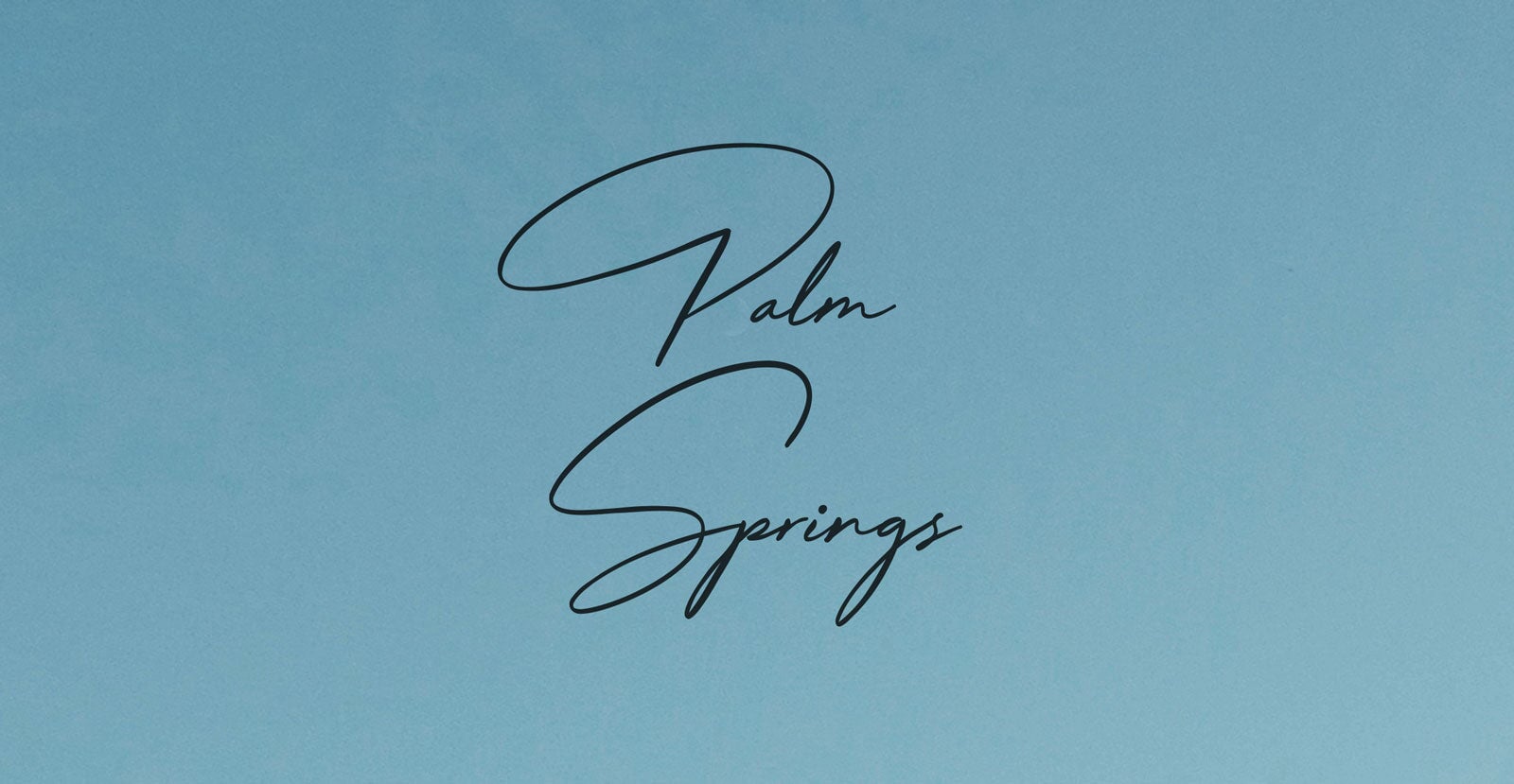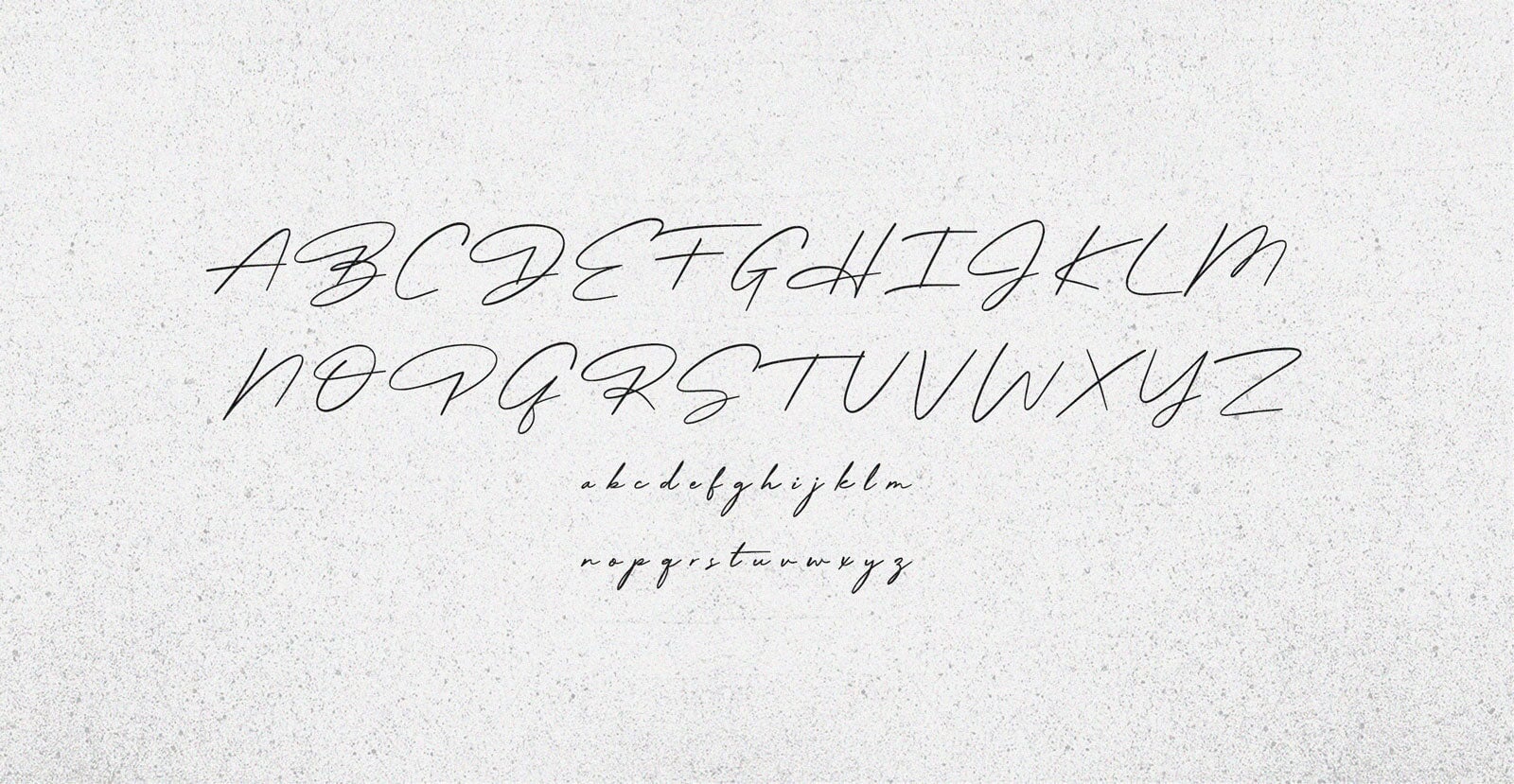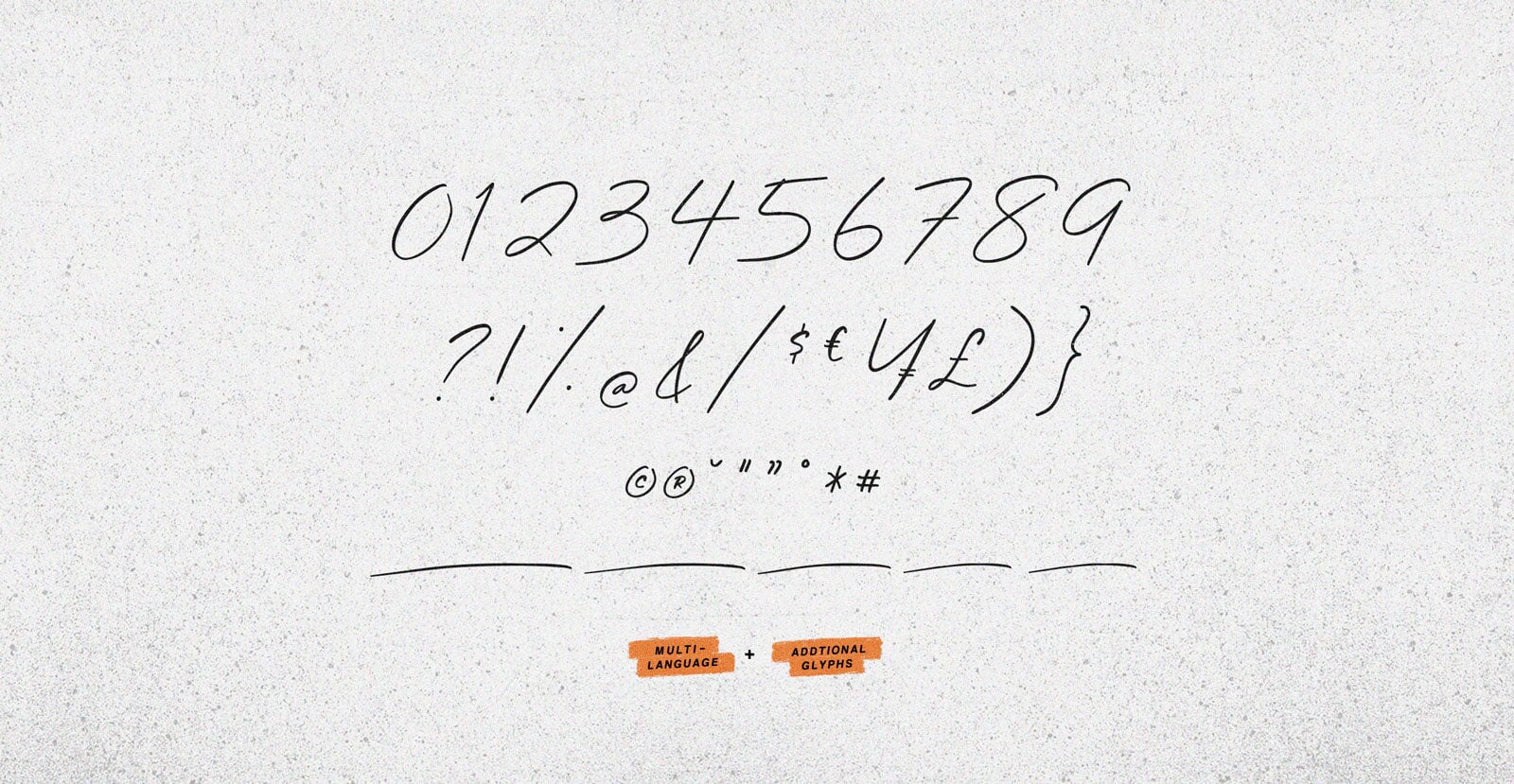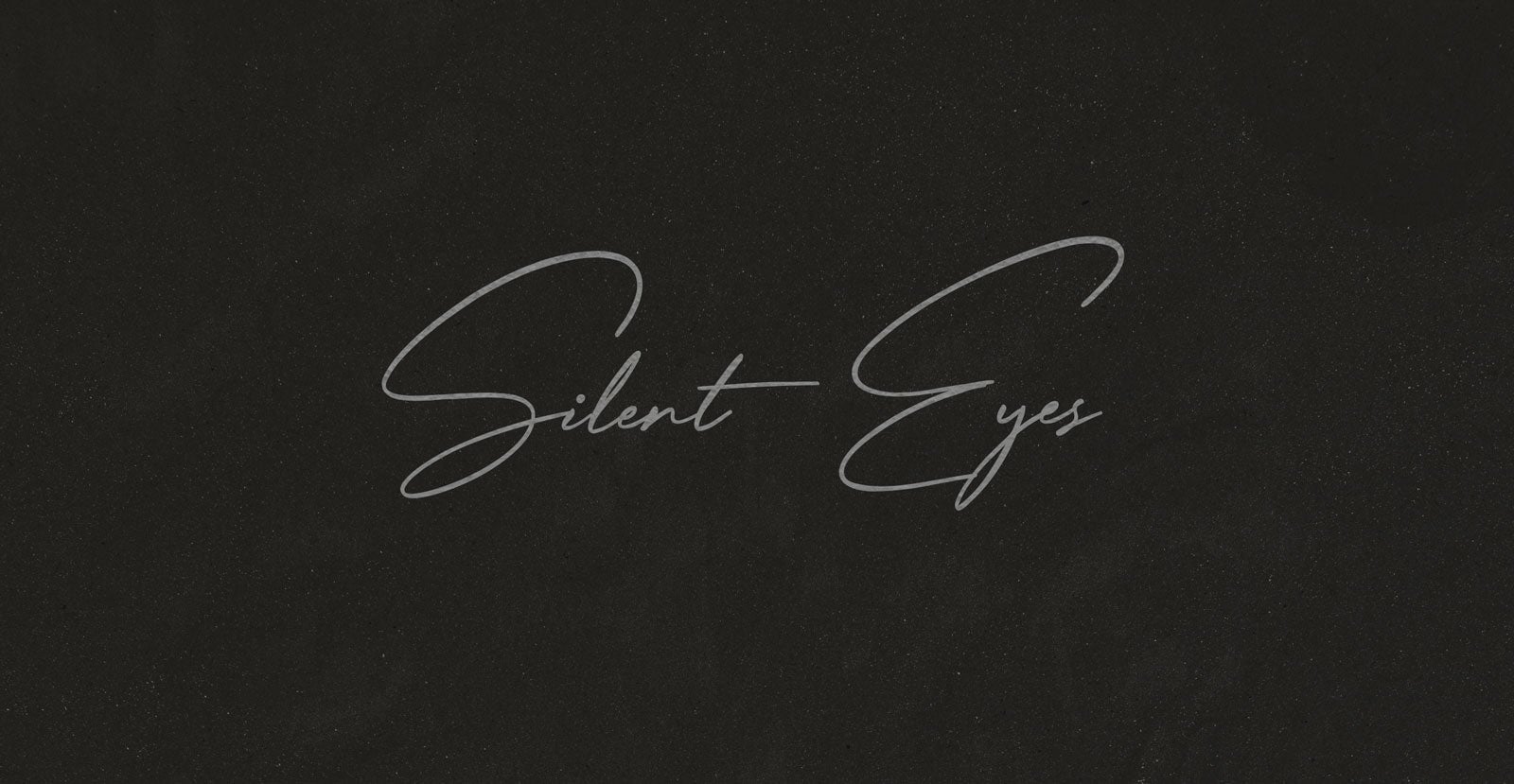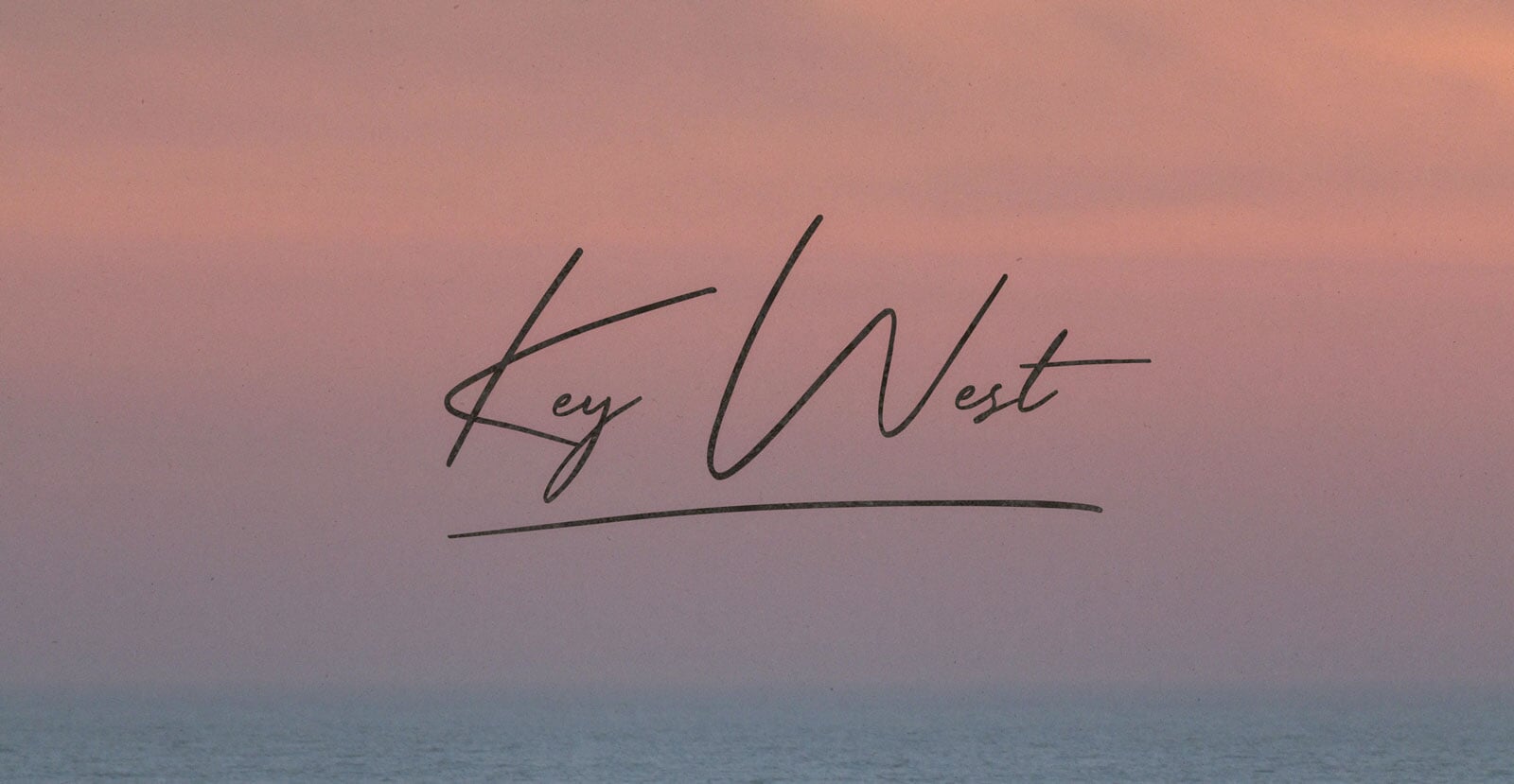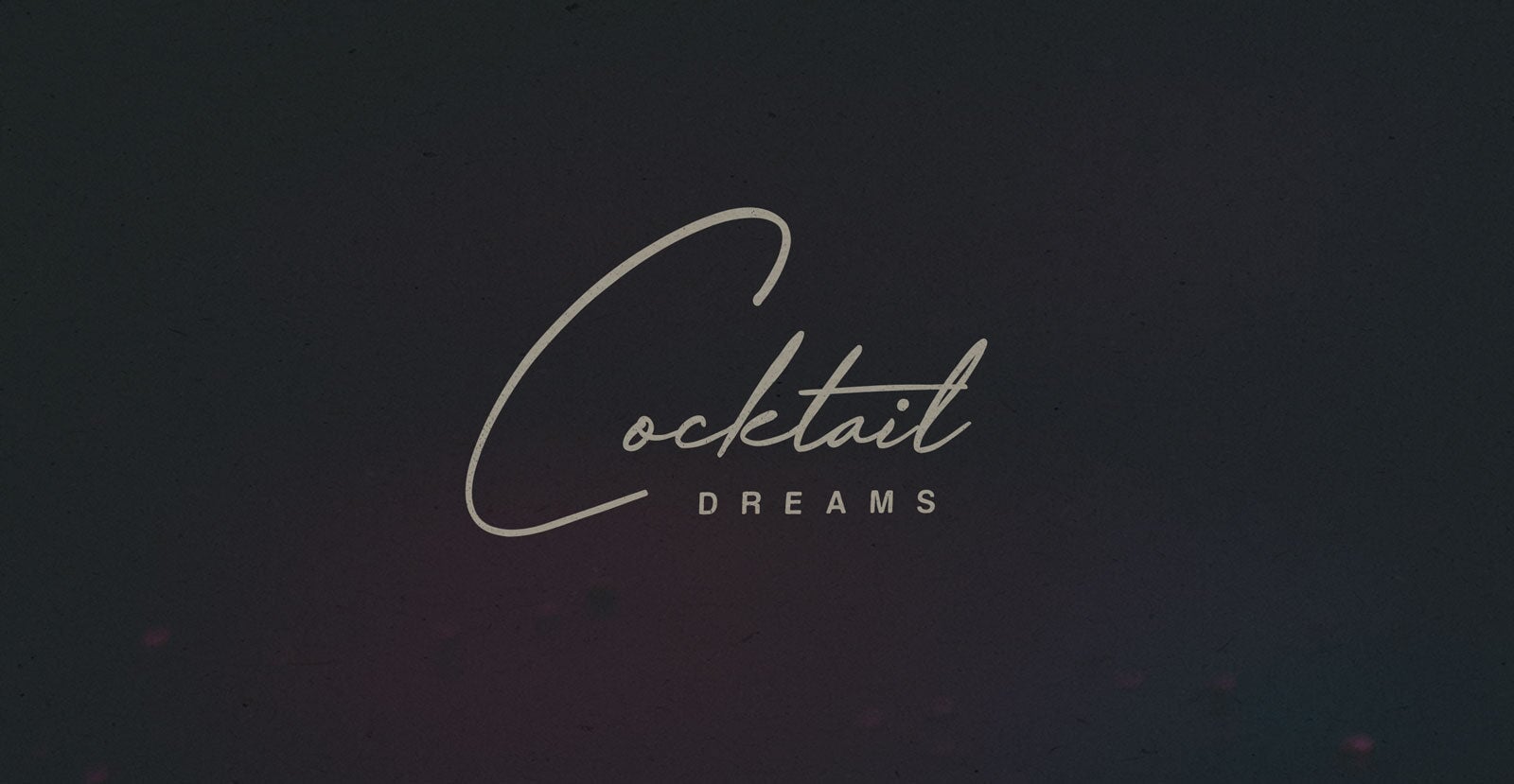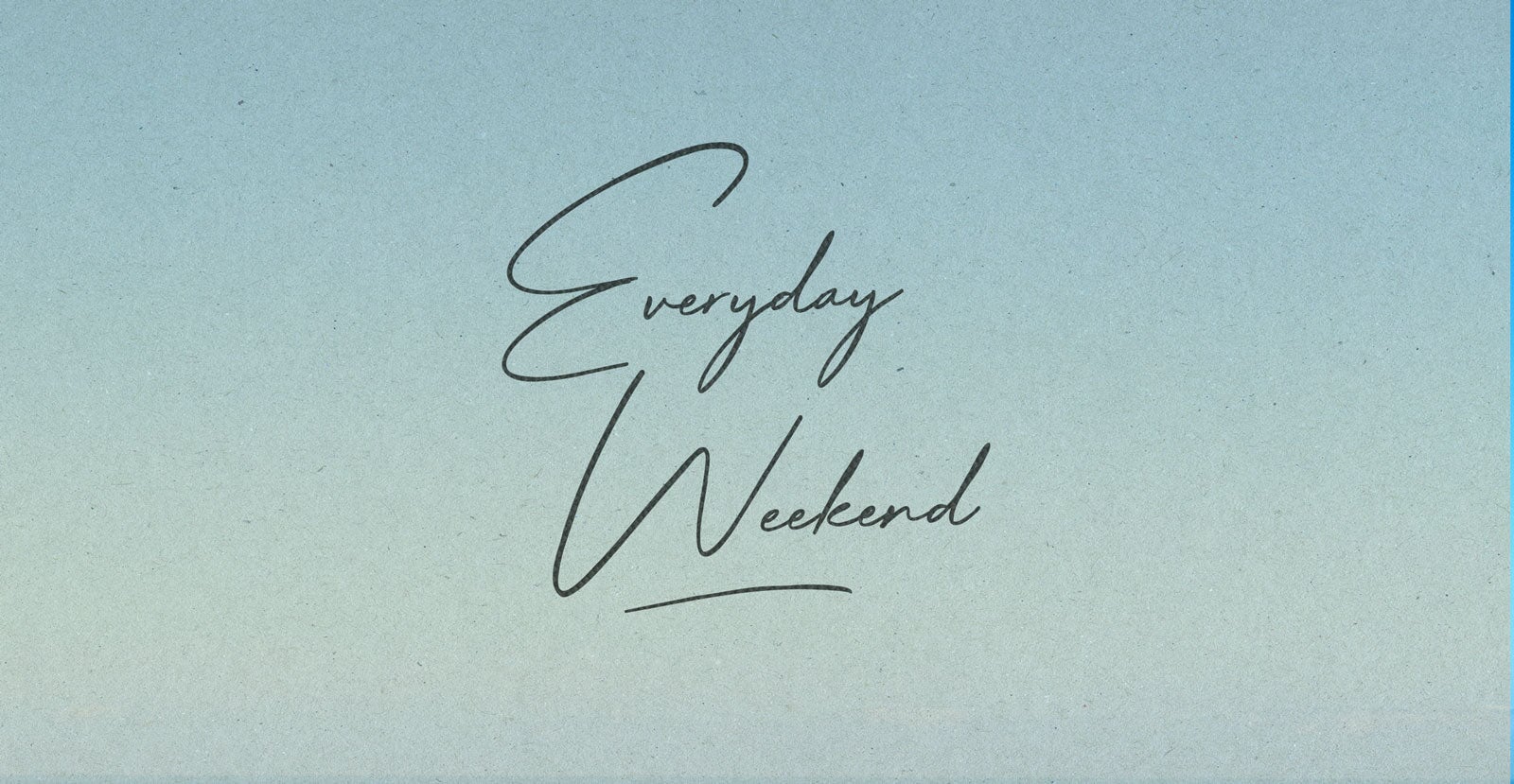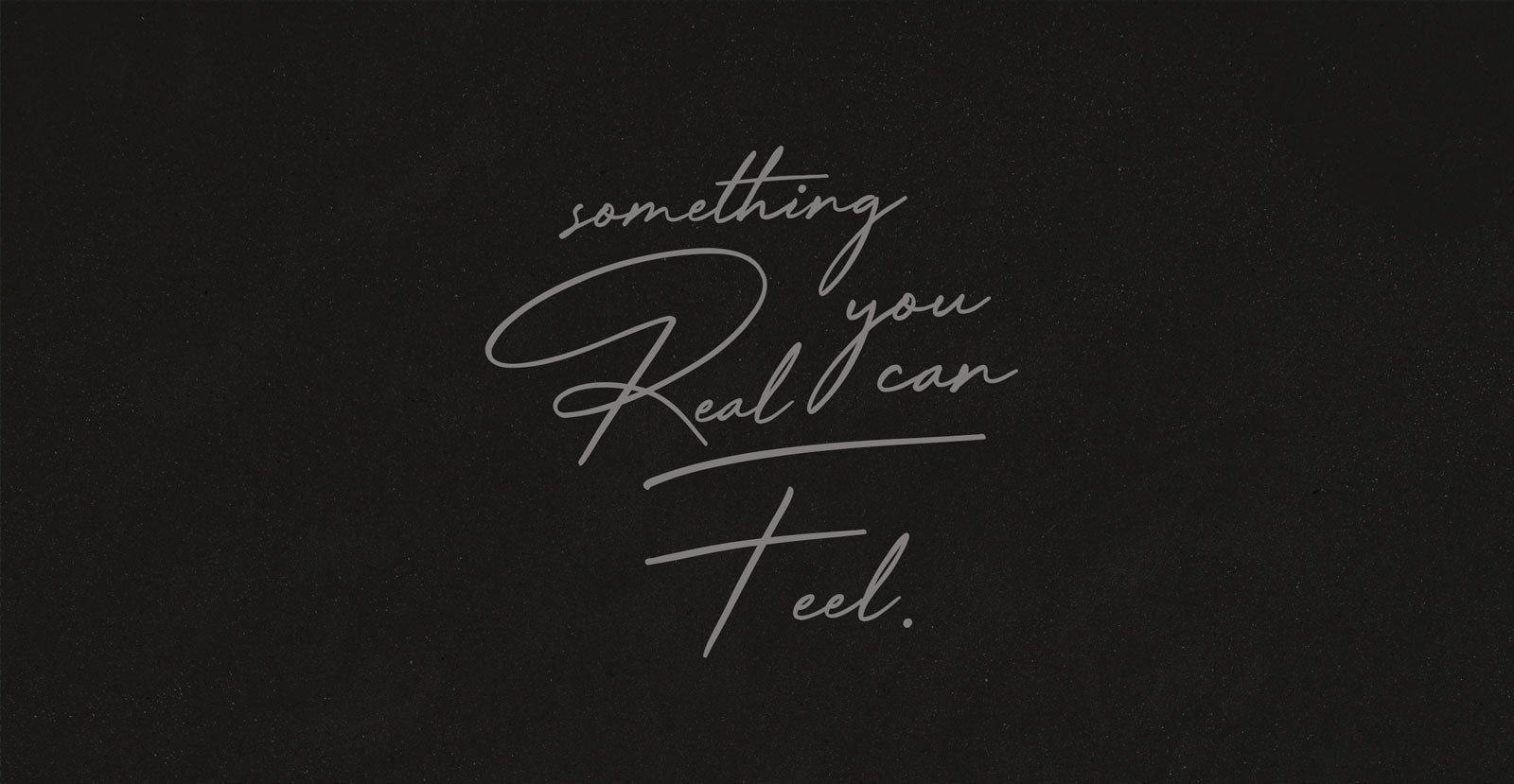
Palm Springs
Handwritten Pen Script Font
It’s mid-century charm with mountain views, poolside mornings, and desert nights that stretch on forever. Whether you're there to unwind, explore, or just soak up the vibe, it’s all about ease and escape. No rush. No stress. Just that clean, warm feeling of space to breathe.